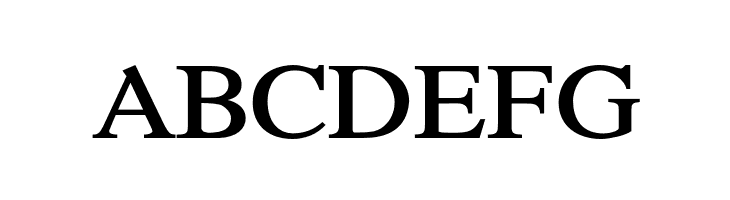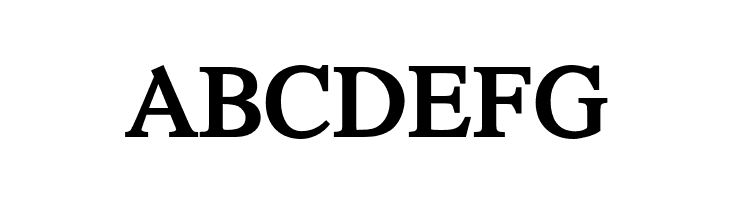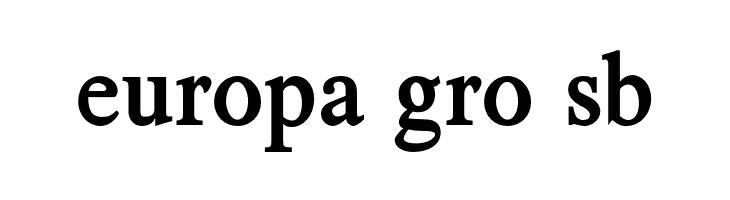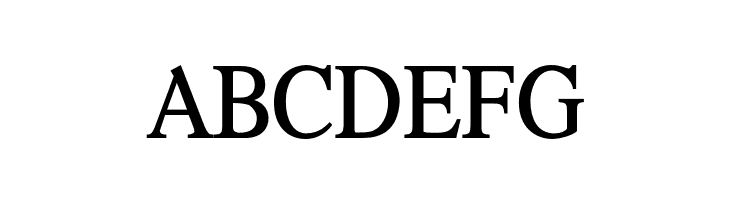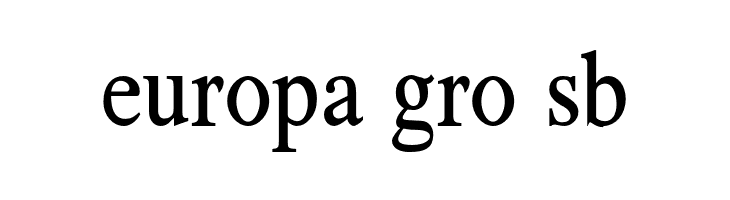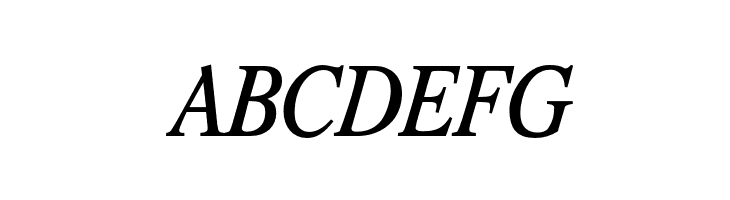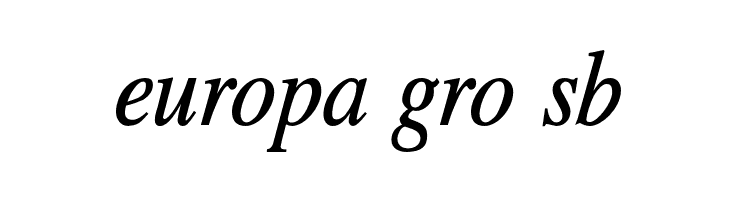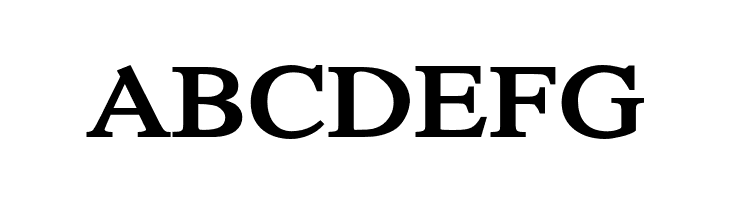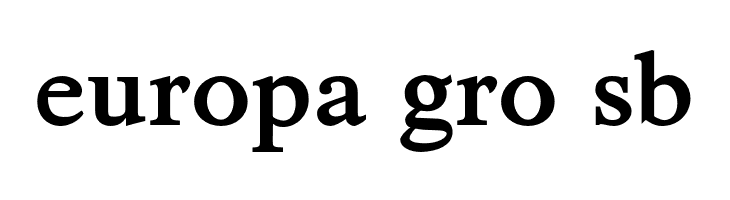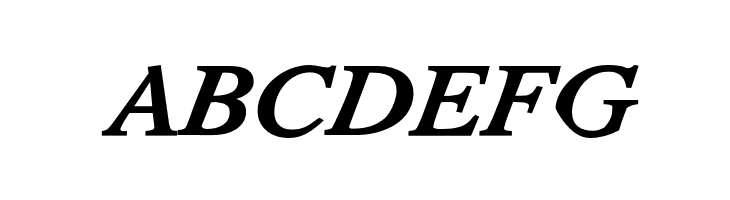
TribunADFStd-Italic Font
Font by Arkandis Digital Foundry
An elegant serif italic typeface with smooth curves and high contrast.
TribunADFStd-BoldCond Font
Font by Arkandis Digital Foundry
A bold, serif font with a classic and authoritative style, perfect for impactful headlines.
TribunADFStd-Bold Font
Font by Arkandis Digital Foundry
A bold, classic serif font with high contrast and pronounced serifs.
TribunADFStd-Cond Font
Font by Arkandis Digital Foundry
A classic serif font with a bold, condensed style and elegant curves.
TribunADFStd-Medium Font
Font by Arkandis Digital Foundry
A classic serif font with medium weight and elegant style.
TribunADFStd-BoldCondItalic Font
Font by Arkandis Digital Foundry
A bold, italic serif font with a modern and dynamic style.
TribunADFStd-ExtraBold Font
Font by Arkandis Digital Foundry
A bold serif font with strong, classic features and modern versatility.
TribunADFStd-CondItalic Font
Font by Arkandis Digital Foundry
An elegant, italic serif font with a condensed width and moderate contrast.
TribunADFStd-Regular Font
Font by Arkandis Digital Foundry
A classic serif font with elegant curves and a strong presence.
TribunADFStd-MediumItalic Font
Font by Arkandis Digital Foundry
A classic serif font with medium weight and elegant italic styling.
TribunADFStd-BoldItalic Font
Font by Arkandis Digital Foundry
A bold, italic serif font with a classic and elegant style.
TribunADFStd-ExtraBoldItalic Font
Font by Arkandis Digital Foundry
A bold, italic serif font with a classic and authoritative style.